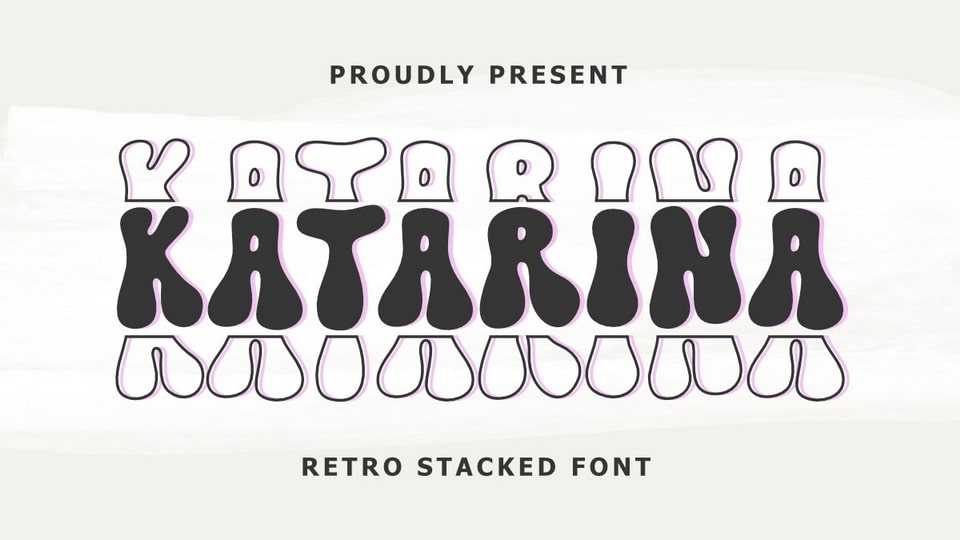
Download Katarina font, a retro-stacked typeface. Its fun and groovy style is perfect for branding, vintage design, logo, quotes, web, and many projects.